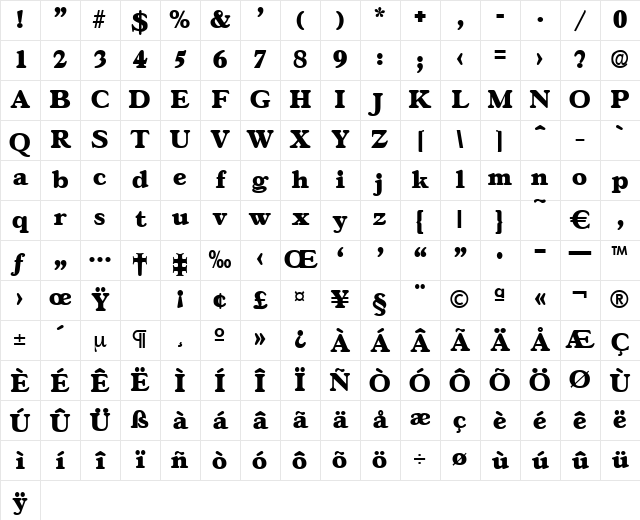
Gascogne-ExtraBold Regular
Complete Gascogne-ExtraBold Regular glyph index. Displaying only characters natively supported by Gascogne-ExtraBold Regular font.
Design Context for Gascogne-ExtraBold
Gascogne-ExtraBold is a composed and adaptable typeface that performs quietly and consistently across a wide range of design contexts. Its bold stroke weight gives it real presence on the page.